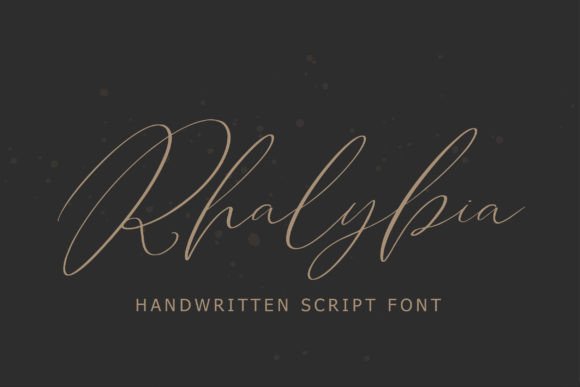
Introducing Rhalybia Font, the epitome of captivating beauty and refined elegance. This script font, created by Bellinghamtype, is a true masterpiece that will instantly elevate your design projects to new heights.
With its graceful curves and seamless flow, Rhalybia exudes an effortless charm that is sure to catch the eye of any discerning viewer. Whether you're a calligraphy enthusiast or a professional designer, this font is the perfect choice to add sophistication and allure to your creations.
One of the standout features of Rhalybia is its delicate yet strong lines, which strike the perfect balance between elegance and power. This unique characteristic gives your text a sense of confidence and authority, making it ideal for a wide range of applications.
What sets Rhalybia apart from other fonts is its PUA encoding. This means that all glyphs and swashes are easily accessible, allowing you to unleash your creativity without any limitations. You'll have endless possibilities to customize and personalize your designs, making each project truly one-of-a-kind.
Whether you're designing wedding invitations, branding materials, or social media graphics, Rhalybia Font will deliver exceptional results every time. Its versatility allows it to adapt to various themes and styles, making it a must-have for any design toolkit.
But Rhalybia is more than just a font – it's an experience. The moment you incorporate this font into your projects, you'll feel a surge of inspiration and creativity. Its captivating presence will draw your audience in, leaving a lasting impression that resonates long after they've encountered your design.